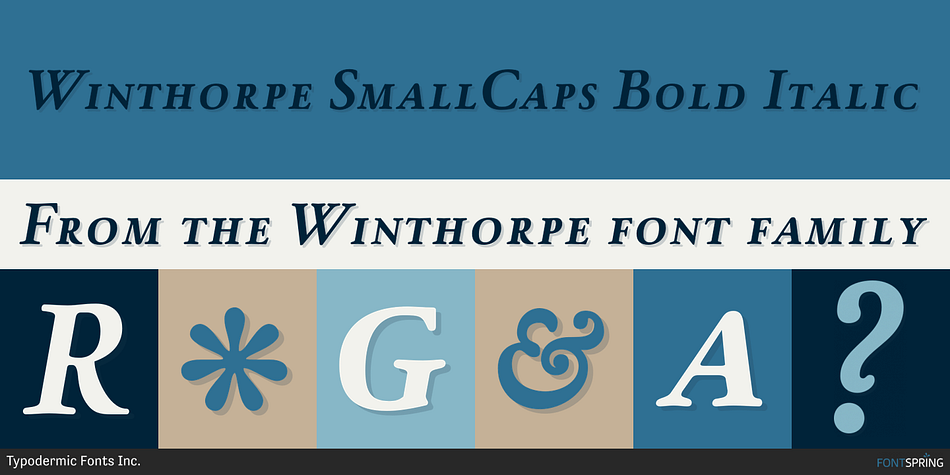
Winthorpe SmallCaps Bold Italic
Winthorpe is a display serif, historical and serif font family. This typeface has twelve styles and was published by Typodermic Fonts Inc.
Immerse yourself in the refined world of Winthorpe—a typeface that doesn’t just nod to typographic heritage, but engages in a full-fledged conversation with it. This transitional masterpiece bridges centuries of design evolution, offering a timeless elegance that elevates any project from mere communication to an art form.
Winthorpe’s letterforms whisper tales of hot metal type and the steady hands of master craftsmen, yet they speak clearly to modern sensibilities. Each glyph is a carefully balanced opus, where the warmth of traditional serifs meets the clarity demanded by contemporary design. It’s as if Baskerville and Bodoni collaborated across time to create a typeface for the ages. But Winthorpe isn’t content to rest on its historical laurels. This versatile family comes armed with an arsenal of typographic firepower: small caps for understated sophistication, italics that dance across the page with graceful determination, and a range of weights from Regular to Bold that allow for nuanced hierarchies within your designs. It’s not just a font; it’s a complete typographic ecosystem.
Dive deeper, and you’ll discover Winthorpe’s true versatility. Lining numerals stand at attention for tables and technical data, while old-style figures nestle comfortably into flowing text. Fractions, superiors, inferiors, and ordinals expand your typesetting possibilities, ensuring that from the simplest memo to the most complex academic journal, Winthorpe has you covered. This typographic polyglot speaks fluently across most Latin-based European writing systems. From the rolling hills of the Scottish Highlands to the sun-drenched plains of Spain, from the fjords of Norway to the shores of the Black Sea, Winthorpe articulates your message with unwavering sophistication. It’s equally at home crafting elegant invitations in French or setting authoritative legal documents in Polish.
Why settle for typography that merely communicates when you can have Winthorpe—a typeface that elevates? It’s a bridge between typographic eras, a testament to the enduring power of well-crafted letters. Let Winthorpe be the voice of your most refined ideas, lending gravitas to every word and turning each project into a timeless classic. In a world of fleeting trends, Winthorpe stands as a beacon of lasting quality—because true sophistication never goes out of style.